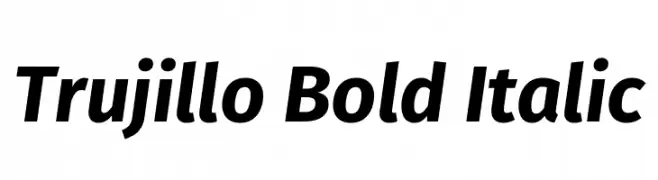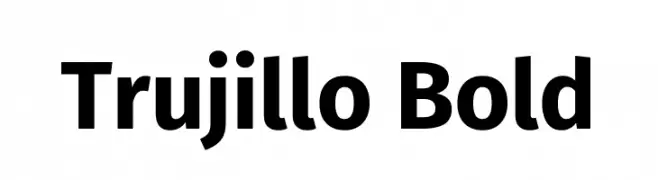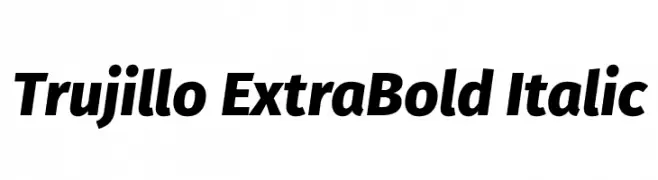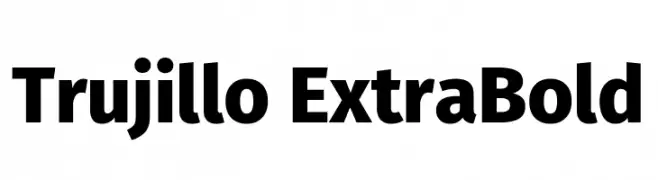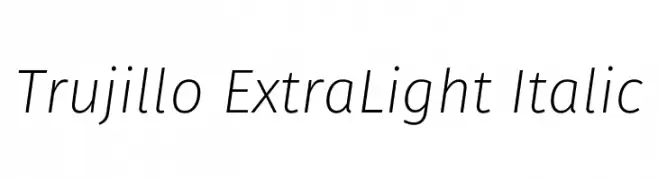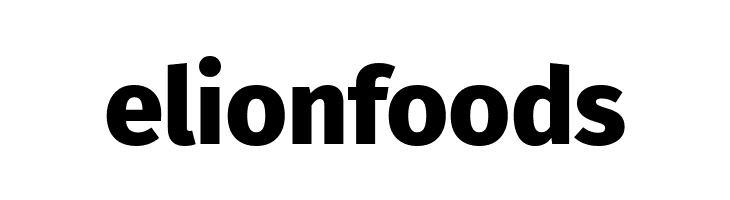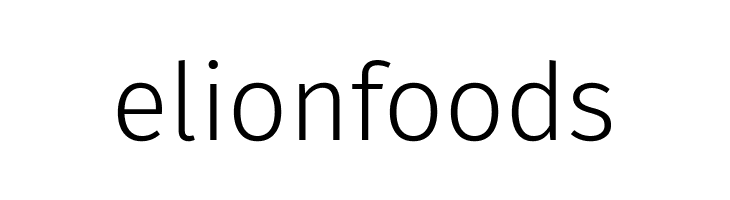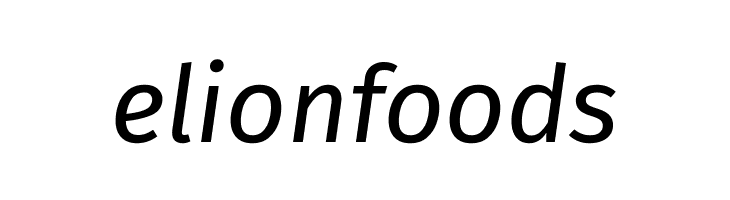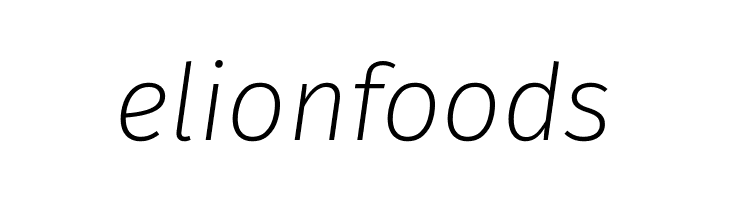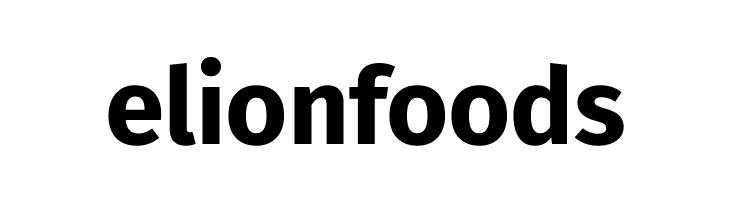
• Trujillo Black Italic
A bold, italic font with strong strokes and dynamic style.
• Trujillo Bold
A bold, modern font with clean lines and strong presence.
• Trujillo Bold Italic
A bold, italicized font with a modern and dynamic style.
• Trujillo ExtraBold
A bold, modern sans-serif typeface with strong, thick strokes.
• Trujillo ExtraBold Italic
A bold, italic font with a dynamic and modern style.
• Trujillo ExtraLight
A clean, modern font with thin, uniform strokes and a minimalistic design.
• Trujillo ExtraLight Italic
A sleek, extra-light italic sans-serif font with a modern and elegant style.
• Trujillo Italic
A modern, clean italic font with smooth curves and a sleek appearance.
• Trujillo Light
A modern, light sans-serif font with clean lines and excellent readability.
• Trujillo Light Italic
A sleek, modern, light italic font with smooth, consistent strokes.